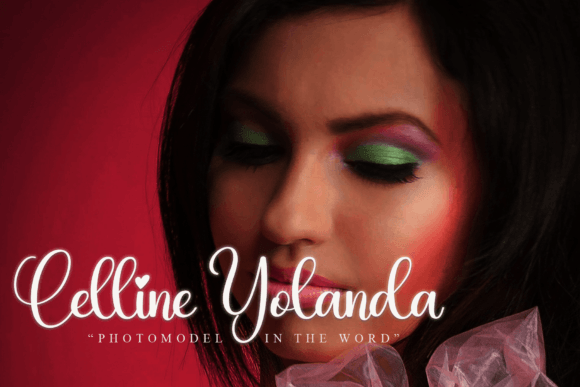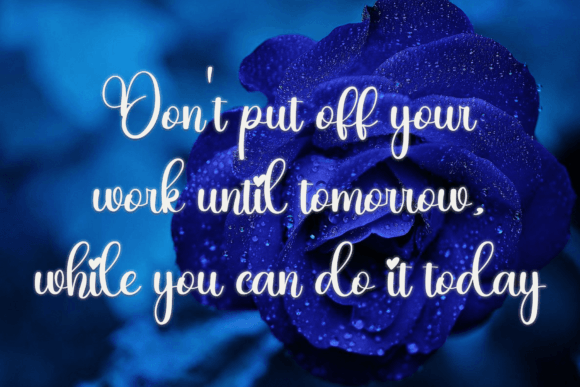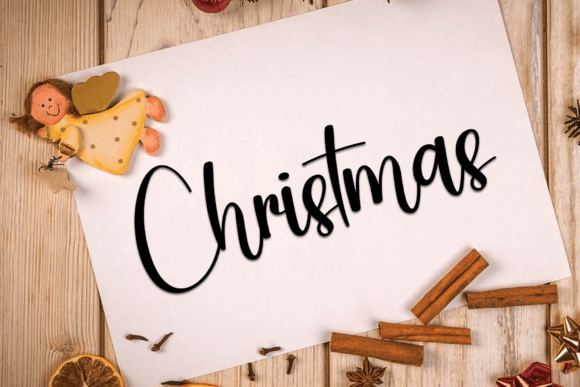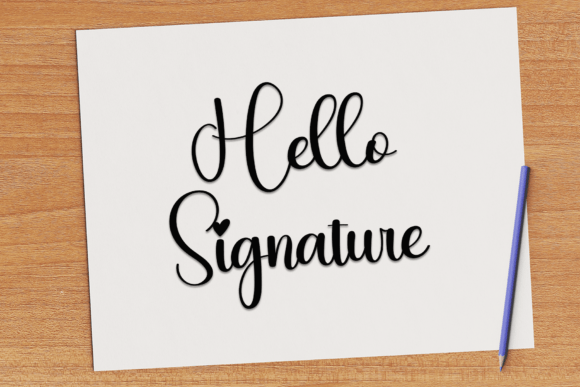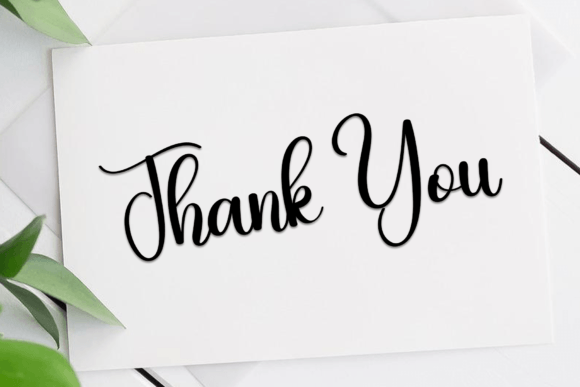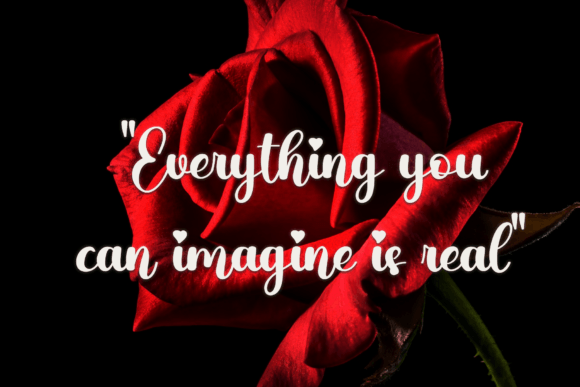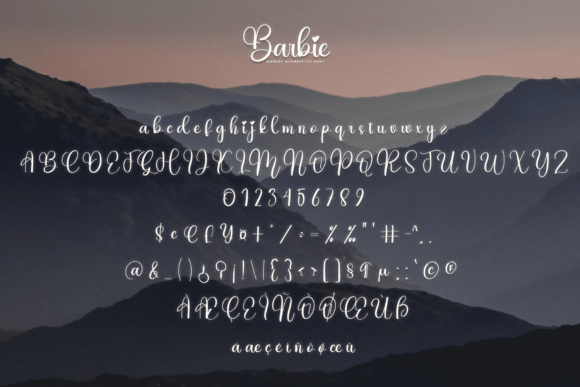
Barbie Font
About Barbie Font
“Barbie” is a unique, round-lettered handwritten font that has been meticulously crafted to achieve the desired results. This font offers a distinct and stylish look that can be effectively used for various applications, including writing titles, invitations, letters, and more.
The round-lettered style of “Barbie” adds a playful and charming element to your designs. Whether you’re creating titles for creative projects or designing invitations for special events, this font brings a unique and eye-catching quality to your text.
Imagine using “Barbie” for playful and creative projects where its round letters contribute to a fun and lively atmosphere. It can also be applied to invitations, adding a stylish touch that captures attention and sets the tone for the event.
As you incorporate “Barbie” into your designs, you’ll find that its carefully crafted round letters create a visually appealing and cohesive look. The font’s versatility allows it to adapt seamlessly to various types of products, making it a valuable asset for your creative toolkit.
Whether you’re working on digital graphics, print materials, or any other design project, “Barbie” invites you to explore its unique and round-lettered style. It becomes a distinctive element in your designs, ensuring that your titles and text stand out with a touch of playfulness and sophistication.